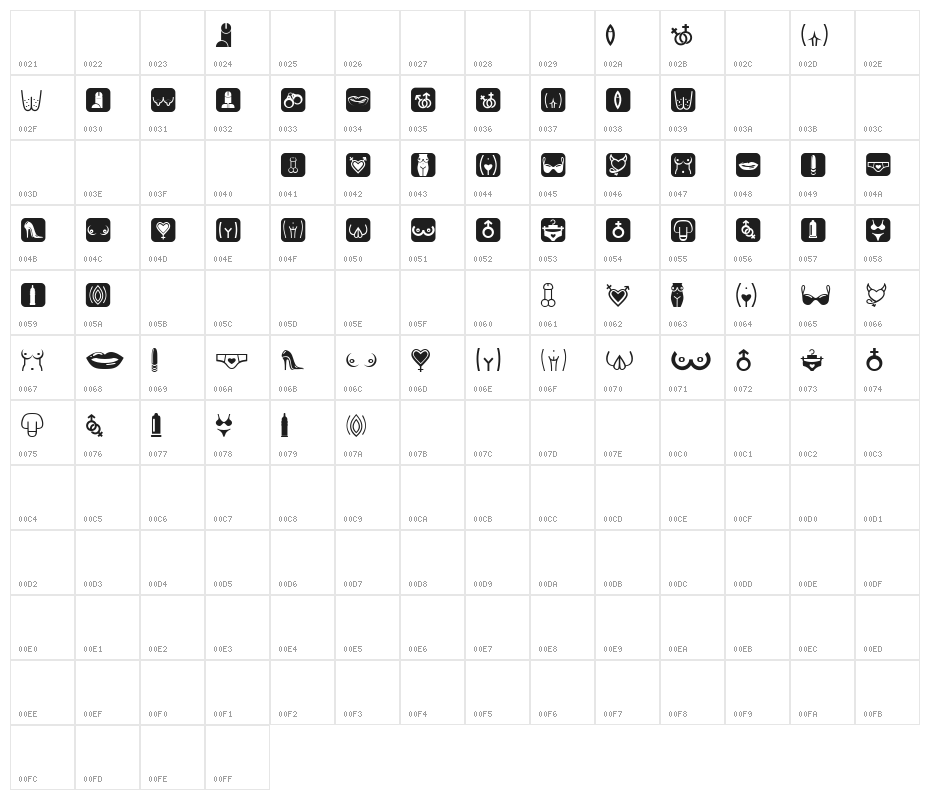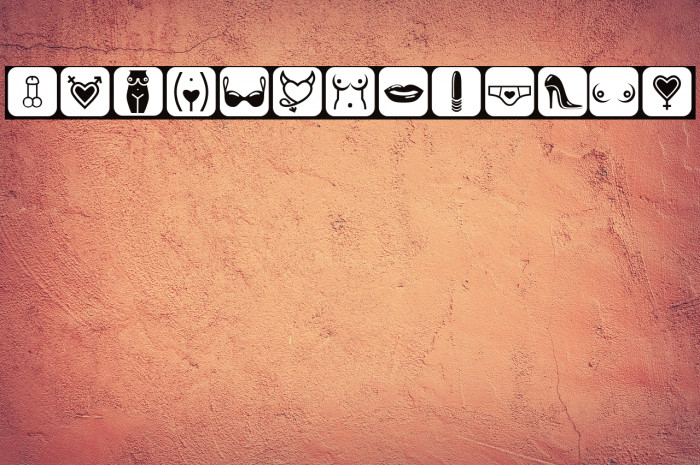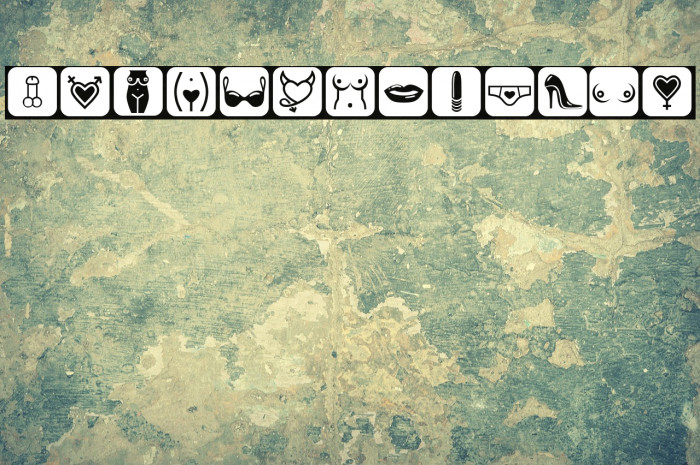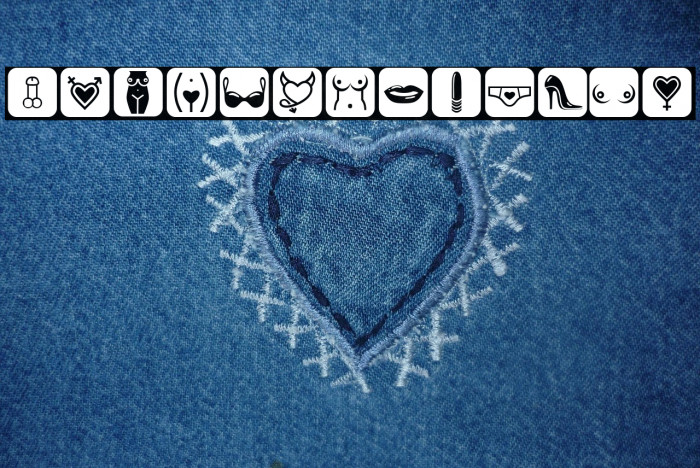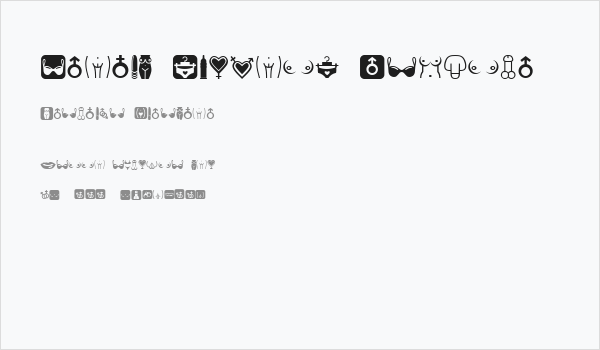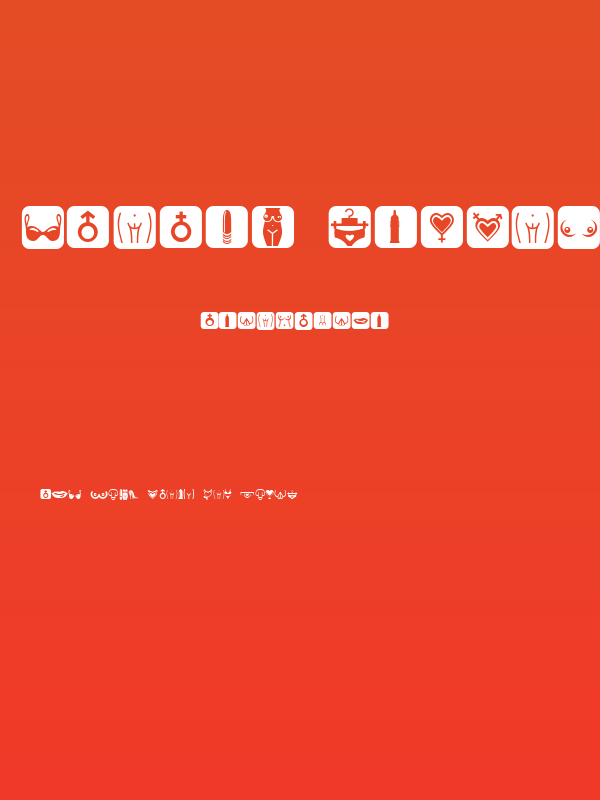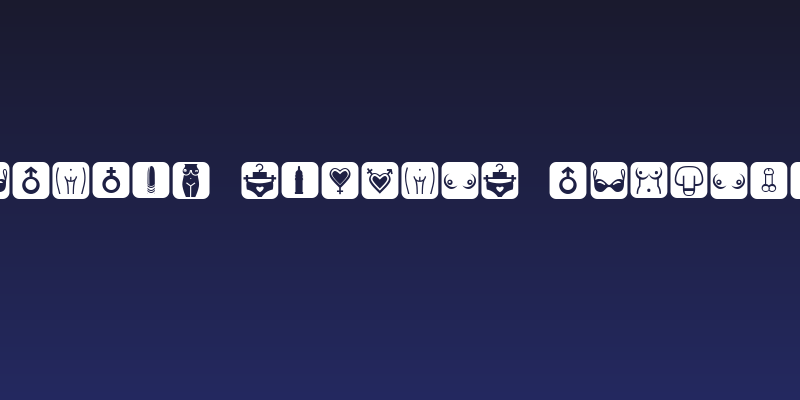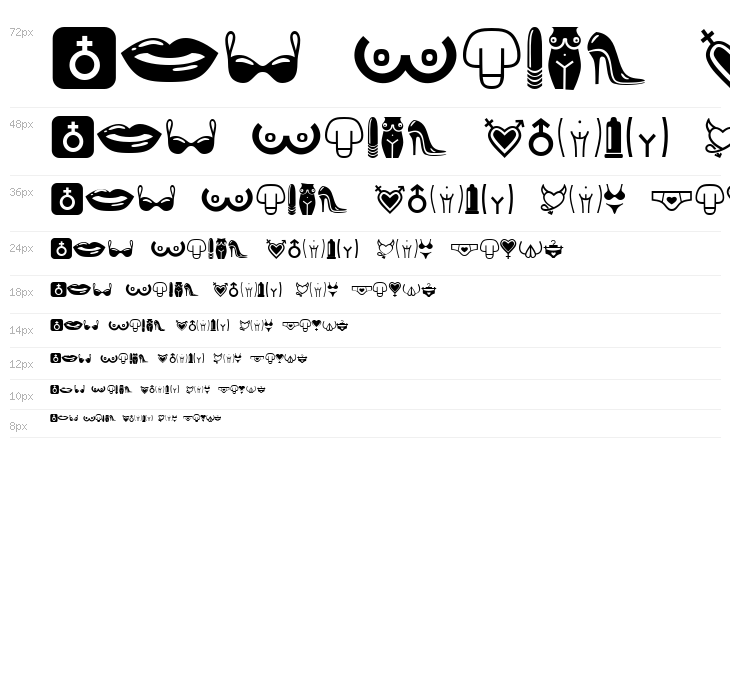
Erotic Symbols Regular Font
Erotic Symbols Regular Description
This set of symbols features a collection of erotic-themed icons, each enclosed within a square or circular frame. The symbols are bold and graphic, utilizing simple lines and shapes to convey suggestive imagery. The icons include representations of various body parts, intimate apparel, and other suggestive elements, all designed with a playful and provocative style. The use of solid black and white contrast enhances the visibility and impact of each symbol, making them stand out distinctly. The overall design is modern and edgy, appealing to projects that require a daring and unconventional aesthetic.
| Use Case | Logos, Novelty items, Adult-themed designs |
| Proposed Projects | Ideal for adult-themed graphic design projects, novelty merchandise, or edgy branding materials. |